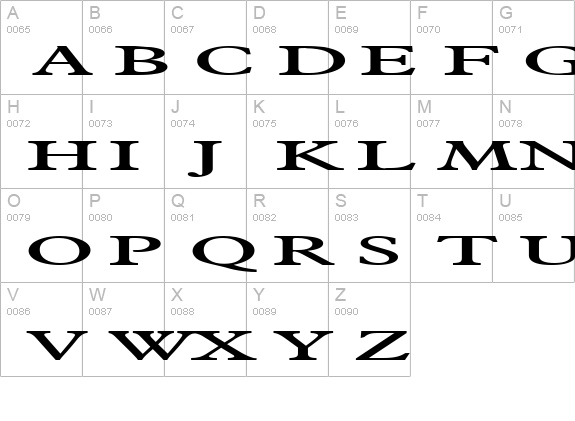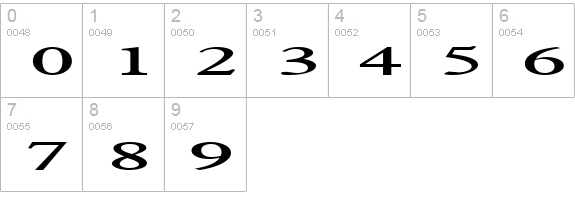
Nadine Extended Normal is the standard, neutral, extended-width variant in the Nadine typeface family \xE2\x80\x94 well suited to general body text, paragraphs, and standard typographic work.
Nadine Extended Normal is a modern and versatile font that exudes elegance and sophistication. With its clean lines and balanced proportions, this typeface is perfect for a wide range of design projects, from branding and advertising to editorial and web design. The extended version of Nadine offers additional flexibility and creativity, making it a valuable addition to any designer's toolkit. What sets Nadine Extended Normal apart is not only its timeless aesthetic appeal but also its accessibility. This font is available for free download at FontsMarket.com, allowing designers to easily incorporate it into their work without any financial constraints. Whether you're a seasoned professional or a budding creative, Nadine Extended Normal is sure to elevate your designs with its refined charm and effortless style. Download it today and unleash the full potential of your projects with this exceptional typeface.